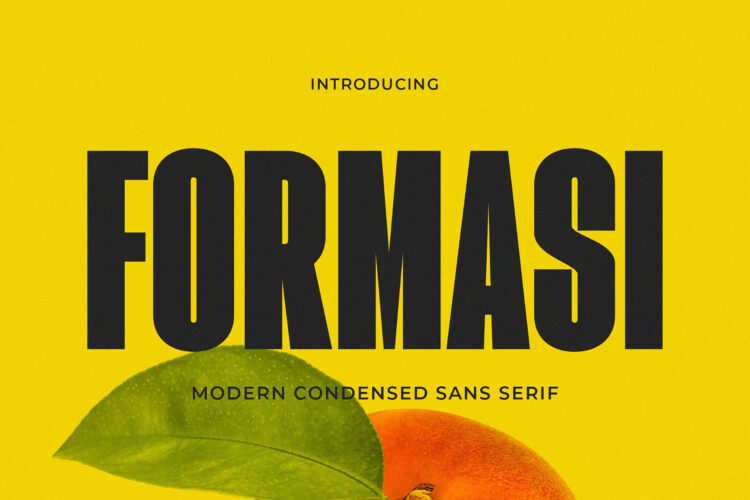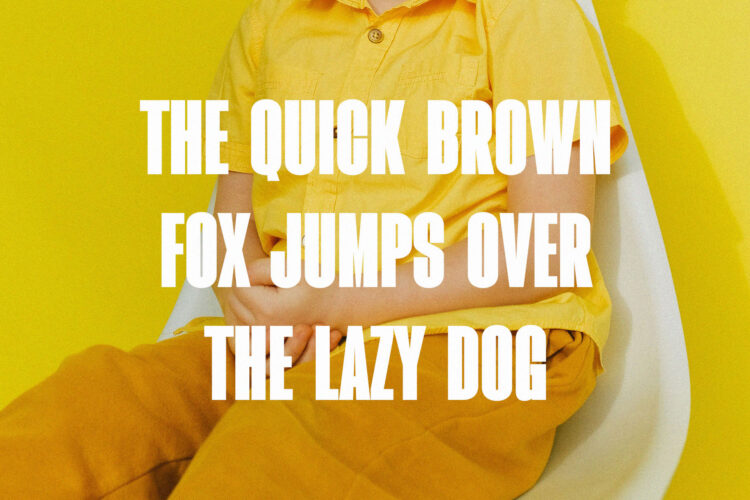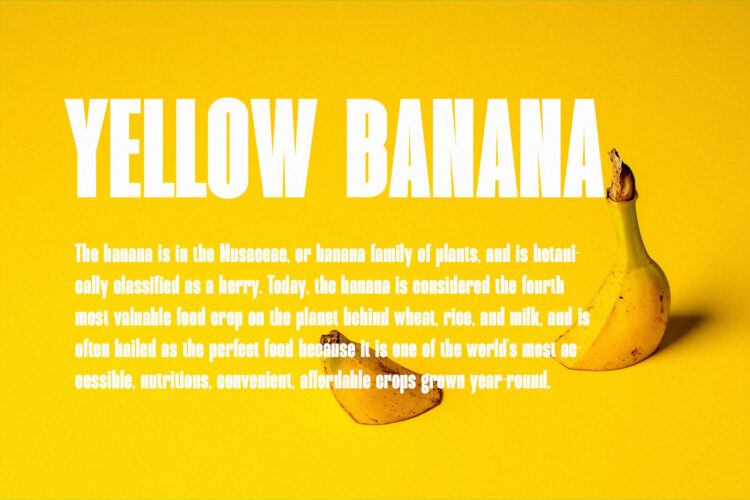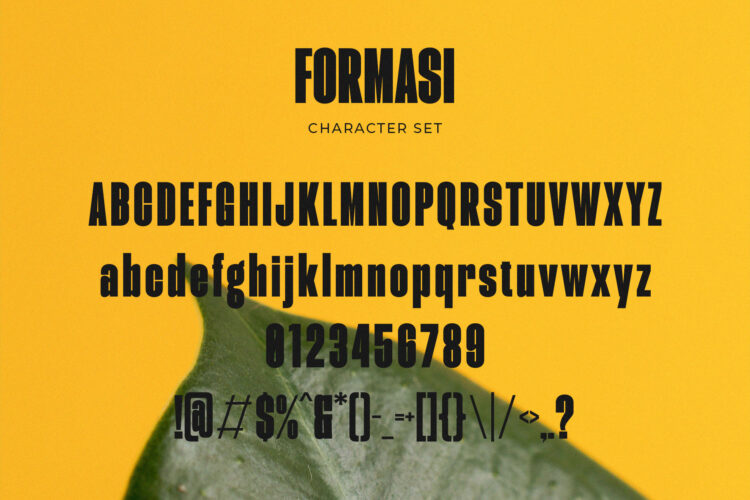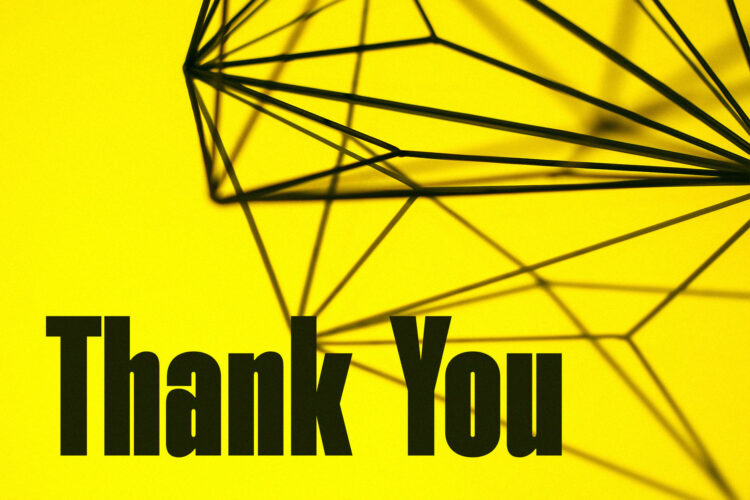
Introducing our new Formasi, modern sans serif font with elegant style this is perfect for branding, logos, invitation, magazines, product packaging and more.
Formasi – Modern Condensed Sans